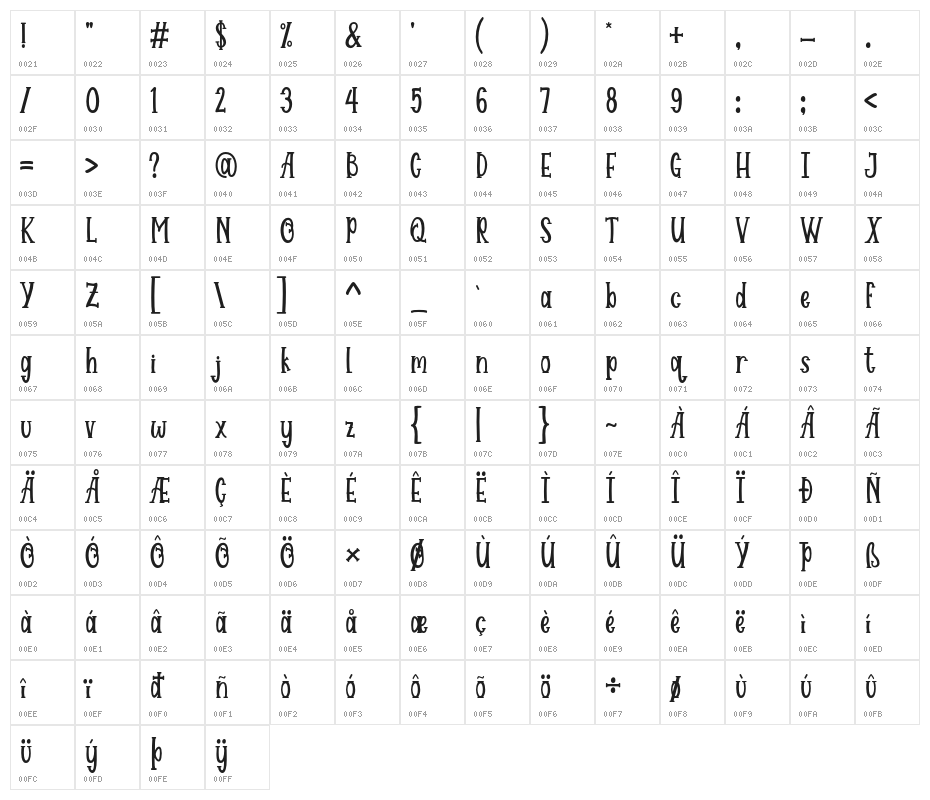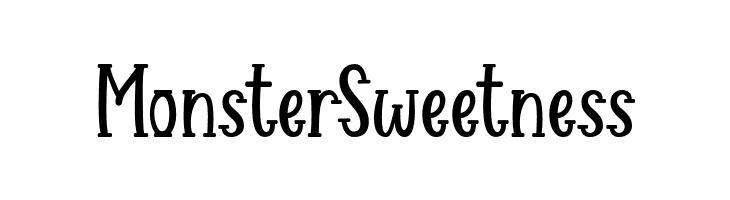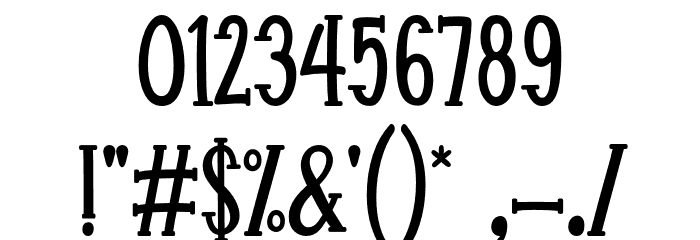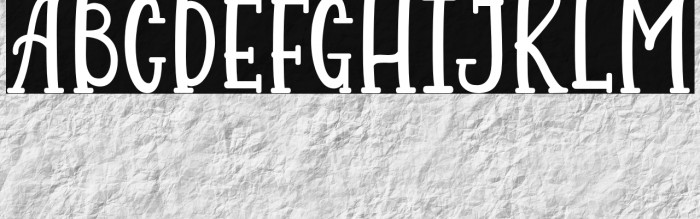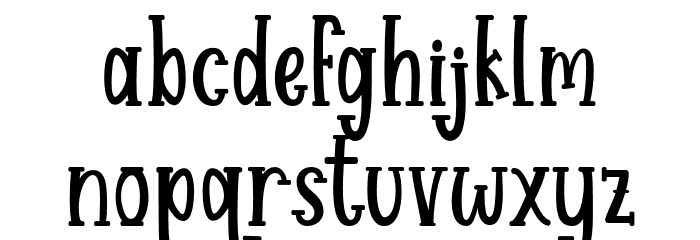
MonsterSweetness Font
MonsterSweetness Description
This playful and whimsical font features a unique blend of bold and curvy lines, creating a lively and energetic appearance. The uppercase letters are tall and slightly narrow, with exaggerated serifs that add a touch of elegance. The lowercase letters maintain a consistent style, with rounded edges and a slightly uneven baseline that enhances the font's quirky charm. Numbers are bold and easily legible, while special characters are designed to match the overall playful aesthetic. This font's distinct personality makes it ideal for creative projects that require a fun and engaging typeface.